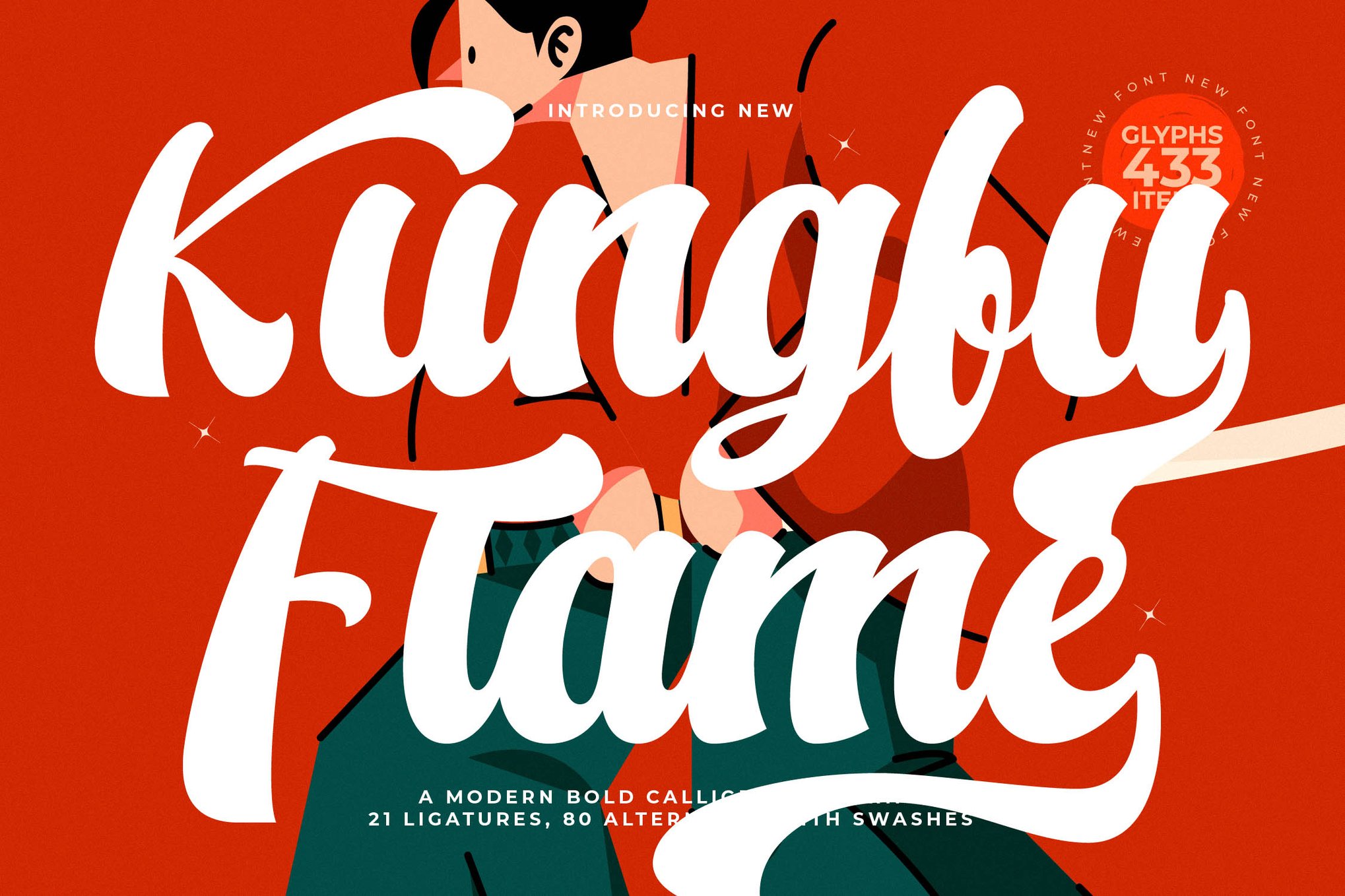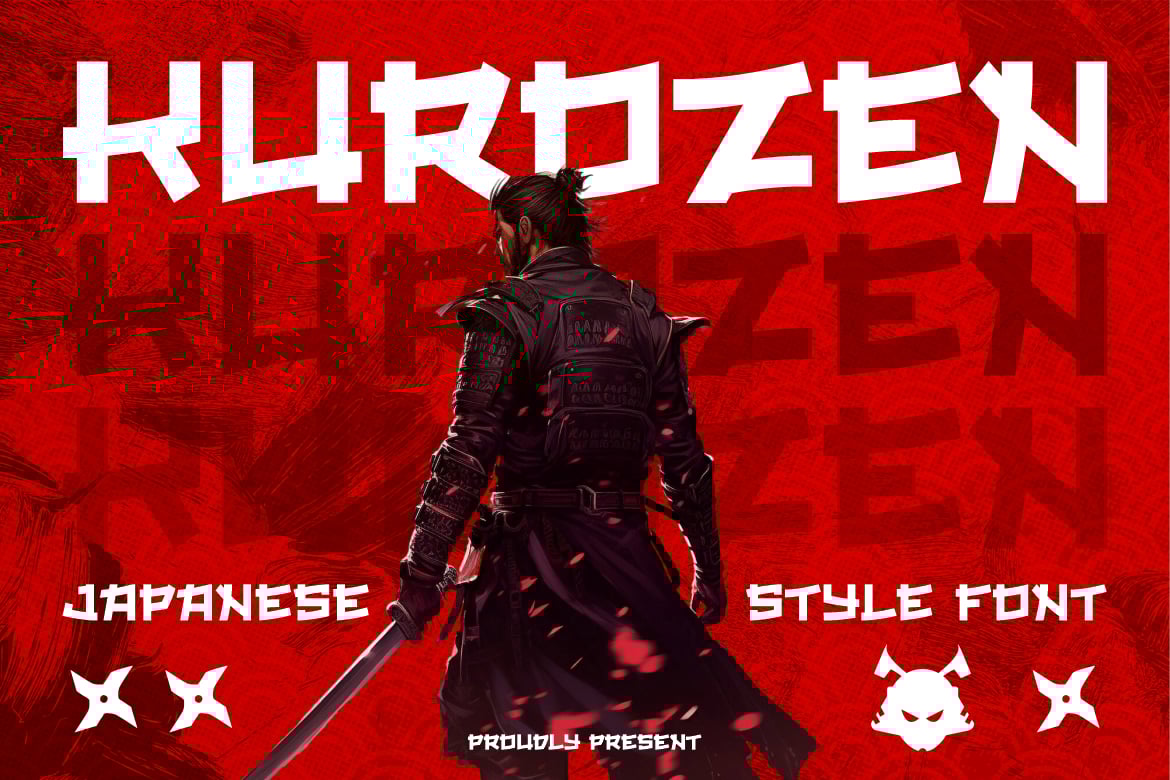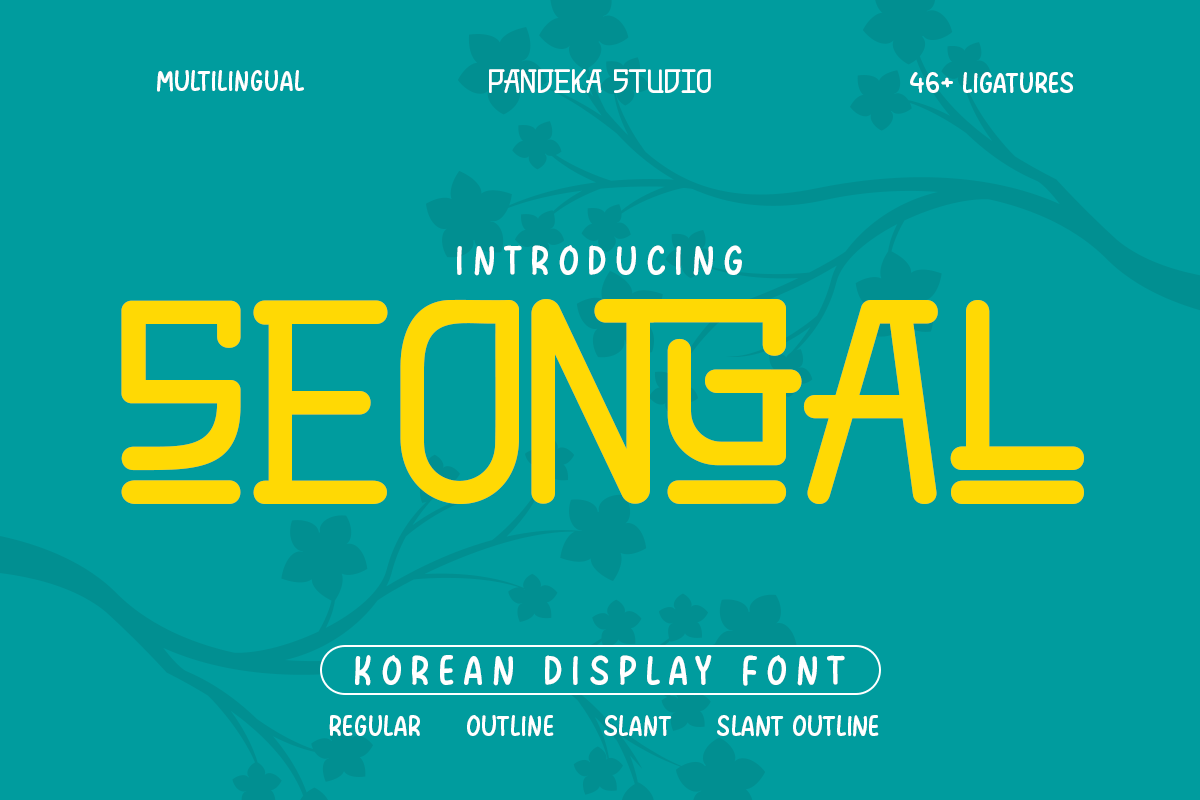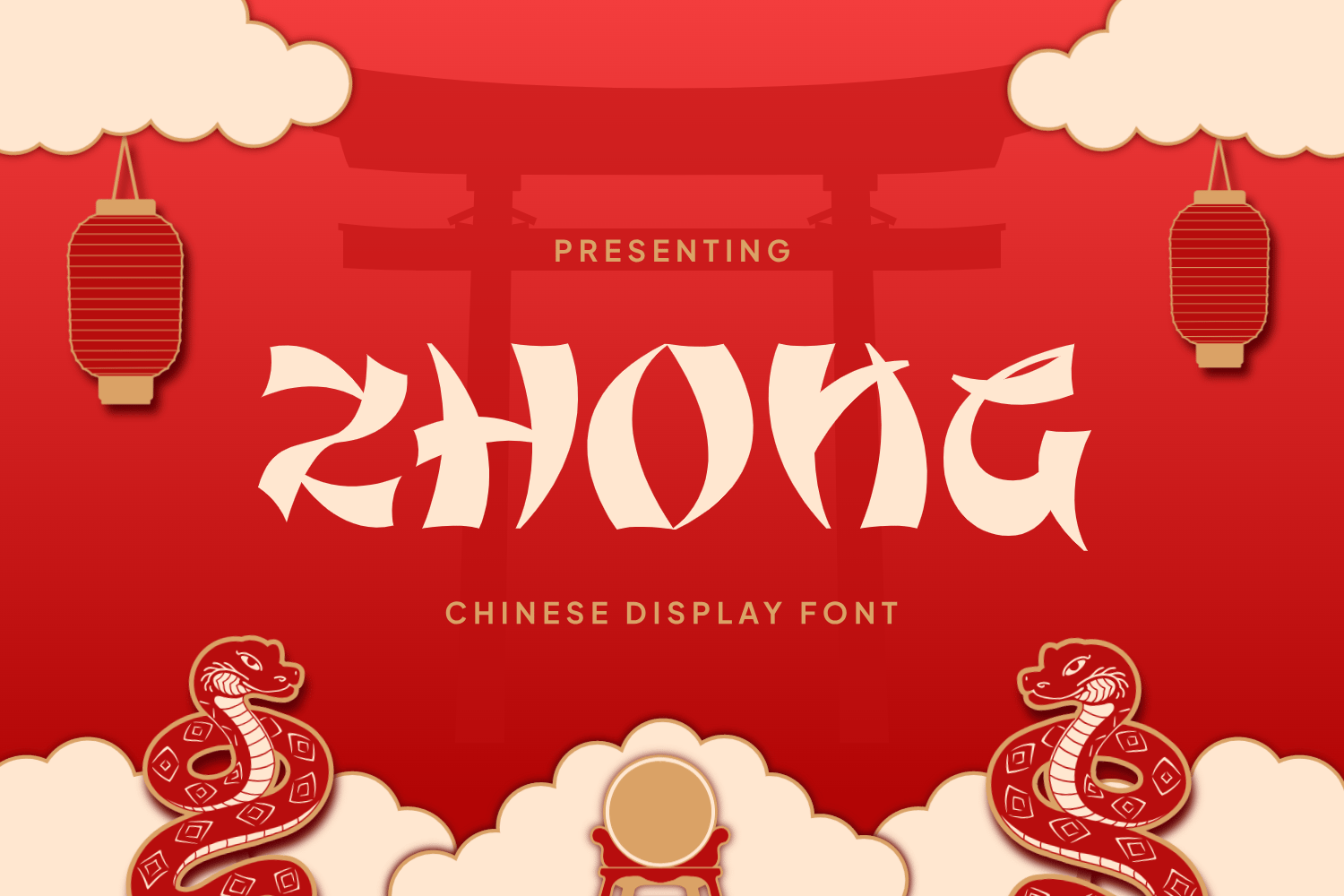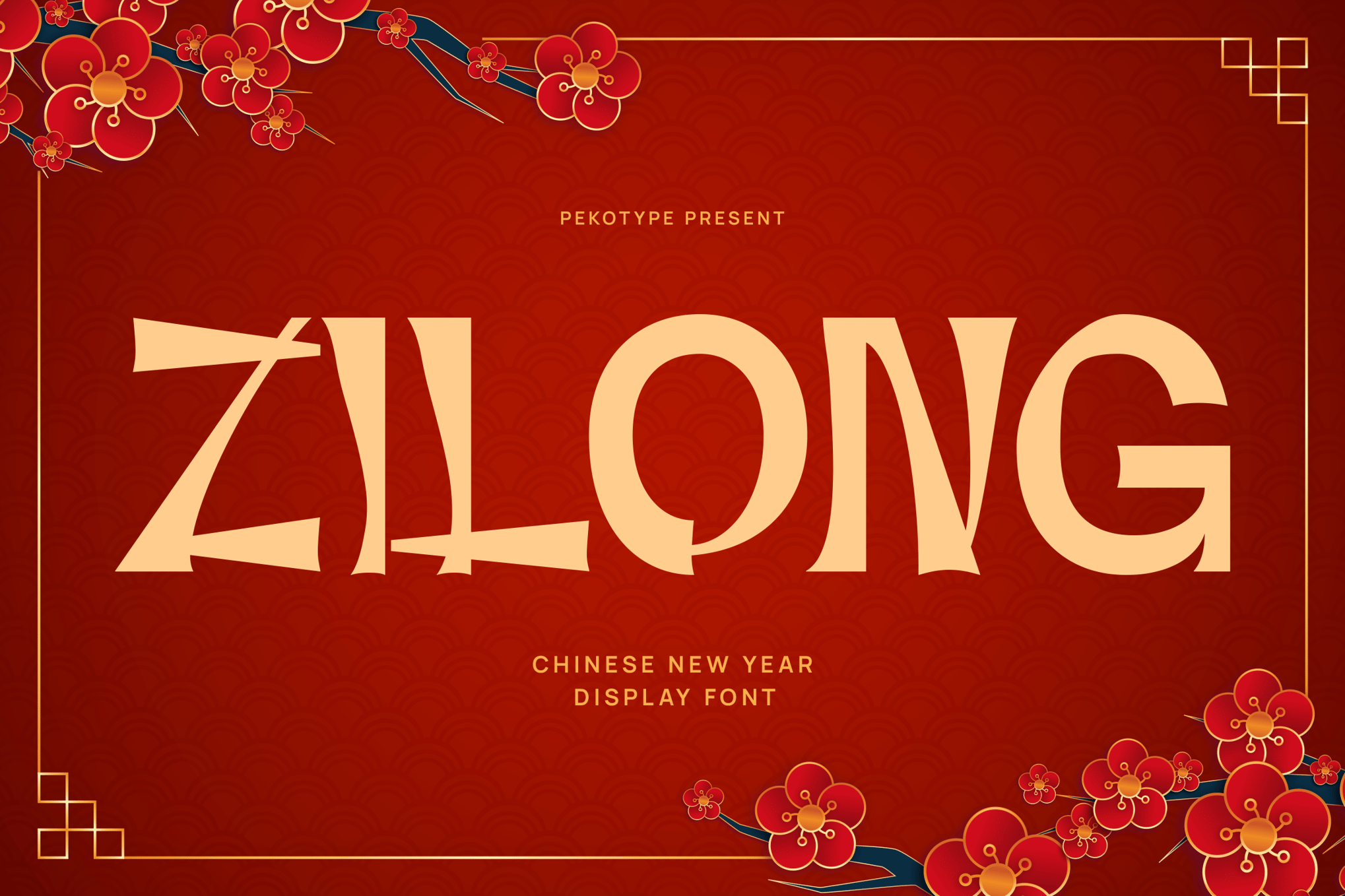
20+ Best Asian Style Fonts for Traditional Designs
Asian fonts are perfect for crafting typography designs that embody tradition, culture, and symbolism. Their beautiful strokes and calligraphy-style letter designs help create a serene and vibrant look for any design.
Today, we bring you a fantastic collection of Asian-style fonts for making such incredible designs that fuse tradition and culture with modern style. These fonts will elevate your typography designs to evoke emotions and transform them into works of art.
These fonts take inspiration from various Asian cultures and different typeface styles. You’ll find both premium and free Asian fonts in the mix as well. Have a look.
Buick Asian Style Font
The Buick Asian Style Font is a contemporary and one-of-a-kind font family, characterized by robust uppercase letters and unique geometric design. Its bold, ethnic, and futuristic attributes make it ideal for use in sci-fi, ethnic, and modern themes. The font comes in OTF, TTF, and WOFF/WOFF2 formats with the promise of free updates and added features. This intriguing font is brought to you by Drizy Studio.
Misaki – Japanese Asian Style Font
Misaki is a beautiful Asian-themed font that features a typography design that takes inspiration from Japanese culture and tradition. It includes beautiful brush-style strokes with clean and graceful looks. The font is an ideal choice for crafting big titles for banners and posters as well as various other projects.
Kungfoo Fighter – Asian-Inspired Fonts
Striking and attractive text is the key to designing signage that grabs attention from far away. This font has the perfect Asian-inspired letter design for doing just that. It’s great for restaurants, logos, book covers, and even social media posts. The font comes in regular and oblique styles as well as with uppercase and lowercase letters.
Osake – Japanese Asian Font
Osake is another Japanese-inspired Asian font that comes with a brush lettering design. It has unique characters with textured designs that will add a bold and hand-crafted look to your typography. The font has uppercase and lowercase letters with many OpenType features.
Jiang – Asian Inspired Font
This is one of the most stylish and attractive fonts on our list. It has a captivating letter design with sharp edges that adds an authentic look to the entire design. This font will instantly transform your title designs, signage, logos, and posters with a rich and timeless look. It’s great for book titles, magazine covers, movie posters, and YouTube thumbnails too.
MAMORU – Traditional Asian Font
You can use this font to craft elegant titles and text with a traditional look and feel. It has Japanese-themed letters with solid strokes and an ethnic design. This font will fit perfectly for making signage for restaurants, logos for niche brands, and even custom t-shirts. It includes uppercase and lowercase characters.
Sament – Free Asian Font
This is a free Asian-inspired font that features a beautiful and elegant character design. It will help you craft bold and attractive titles and headings for your websites, social media posts, and posters. The font is free to use with personal projects.
Yekow – Free Japanese Themed Asian Font
Yekow is another free Asian-themed font you can use with your personal designs and projects. It has casual letters with a traditional Japanese typography design. The font will look amazing on big banners, posters, and even on t-shirts.
Boyaka – Brush Style Asian Font
Whether you’re working on a title for a video game or a movie poster, this Asian-inspired font has the perfect look for designing sleek typography for various projects. It has creative brush-style letters with a decorative textured look.
Hirokawa – Asian Japanese Font
This Asian font also takes its inspiration from Japanese traditional lettering designs. It embodies Japanese culture and aesthetics through each of its letters using captivating brush strokes. It will surely add a timeless and traditional look to your print and digital designs.
Gludak – Asian Style Font
A unique Asian-style font that fuses traditional Asian aesthetics with modern design elements. This creates a very stylish and creative look for this letter design. It’s a font that will make your titles, headings, and signage look much more unique. You can use the font to craft branding designs that stand out from the crowd.
Asia Impact – Brush Calligraphy Font
If you want to give a handmade and artistic look to your typography, this font is the perfect choice for your project. It features a unique script letter design with handwritten brush-style strokes. The font also has two different versions for each letter with unique Asian-inspired looks.
Asian Cyborg – Futuristic Asian-Inspired Font
A fun and playful font that takes inspiration from Asian typography. It also fuses futuristic design elements for each letter to give a unique look to this font. The font comes in 5 different styles including regular, decorative, shadow, rough, and all-in-one. These fonts are ideal for movies, cartoons, video games, and various other entertainment-related projects.
KAWARA – Modern Asian Style Font
This is a modern Japanese-inspired font that comes with a creative design. It takes inspiration from modern signage and packaging designs in Japan and transforms your text into stunning designs.
RAMISA – Faux Japanese Asian Font
Ramisa comes with both uppercase and lowercase letters featuring traditional Japanese-style designs. It has a bold artistic vibe that will also add personality and character to your designs.